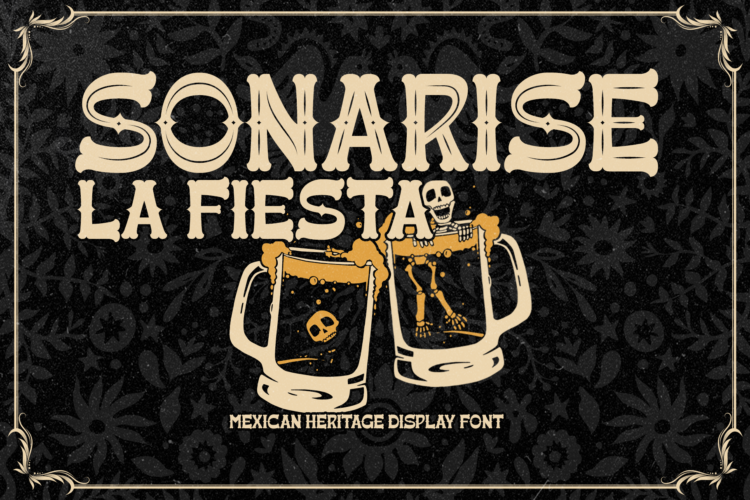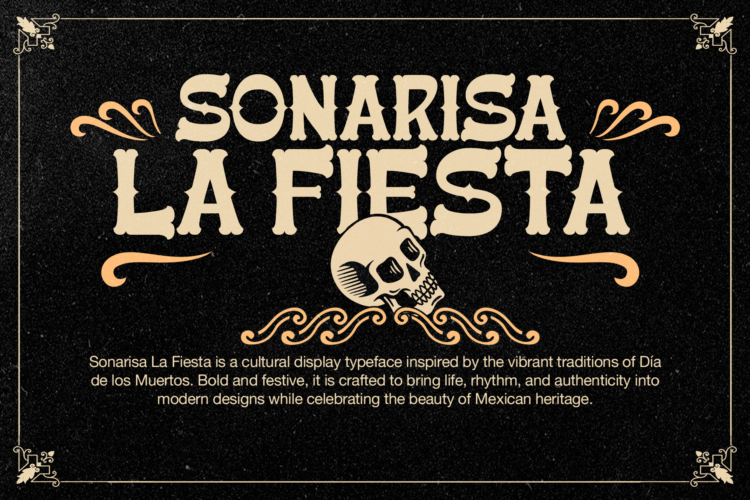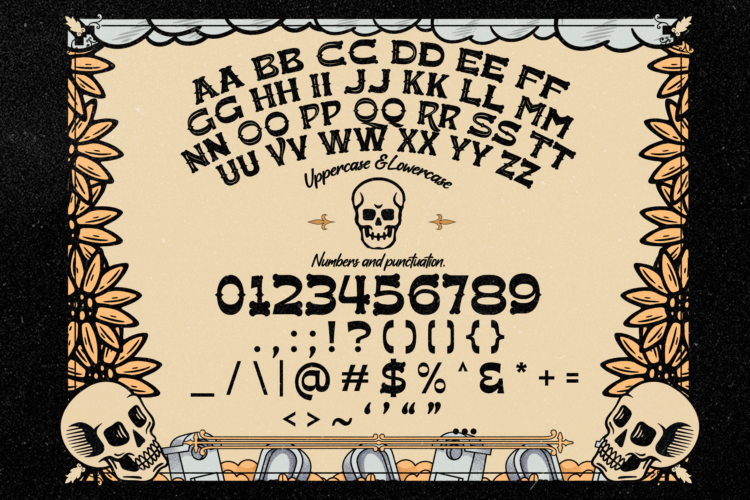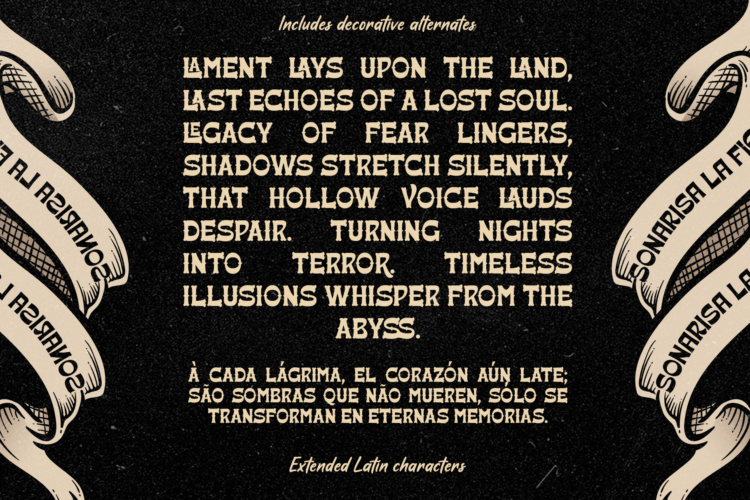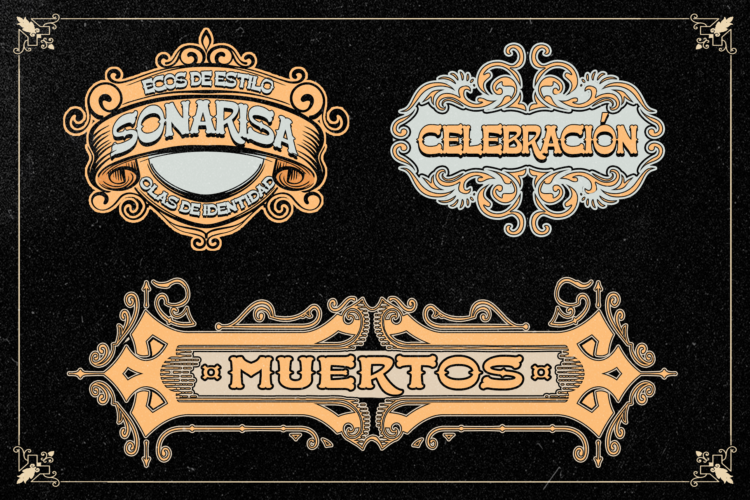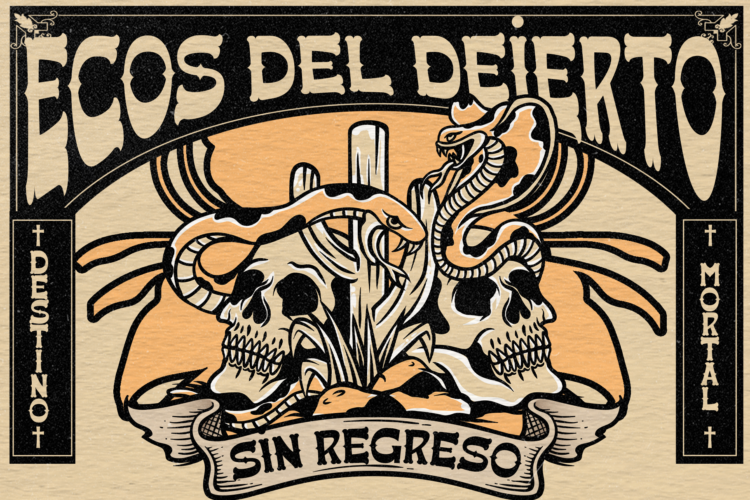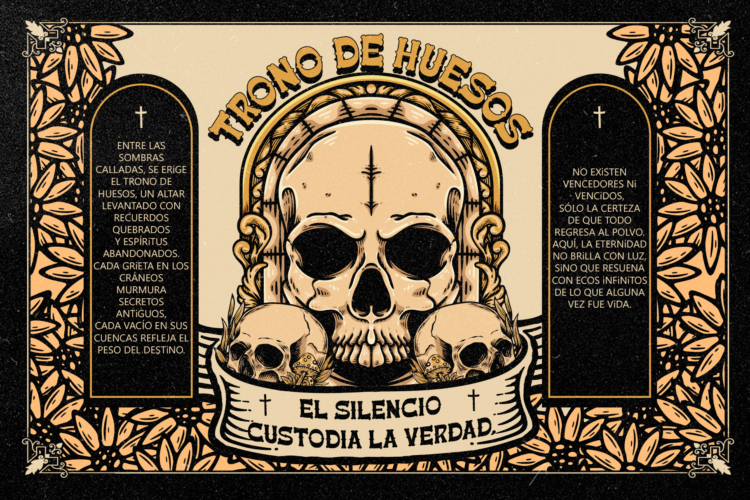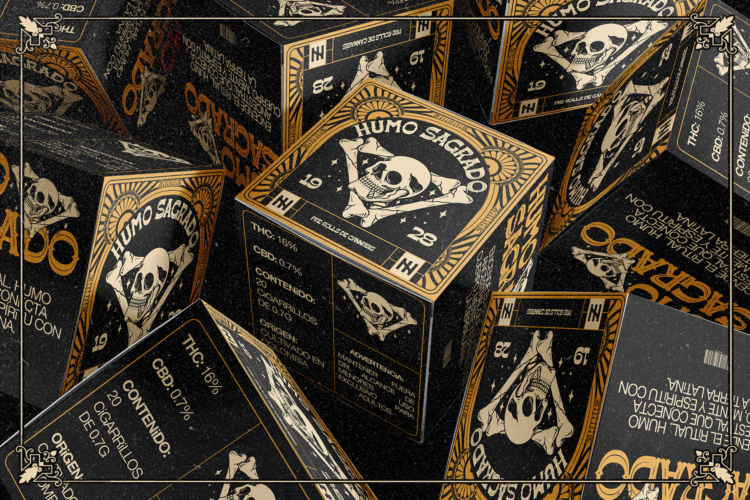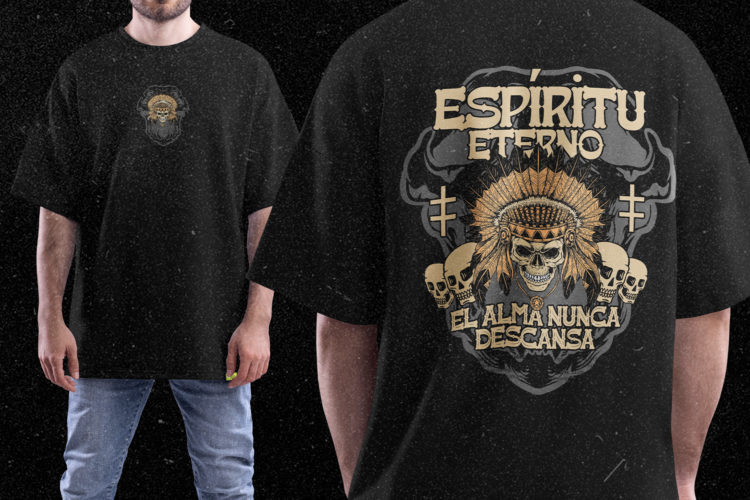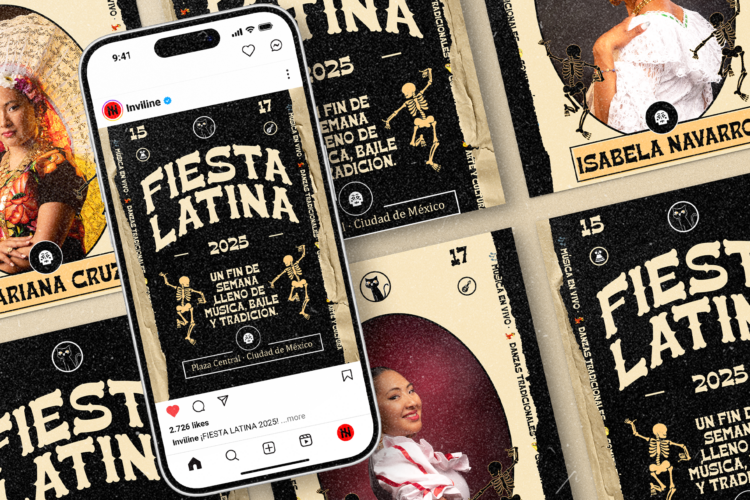
Sonarise La Fiesta – Heritage Font
Sonarise La Fiesta is a cultural display typeface inspired by the vibrant traditions of Día de los Muertos. Crafted with bone-shaped letterforms, bold curves, and festive details, this font dances between life and afterlife, echoing the rhythm of Latin celebration and remembrance.
Each character is infused with energy — from skulls to ornamental strokes — designed to elevate posters, event branding, and packaging with both character and charm. Whether you’re designing for Halloween, a Latin-themed fiesta, or music artwork with soul, Sonarise La Fiesta brings authenticity, rhythm, and legacy to your layout.
- Uppercase & lowercase
- Numbers & punctuations
- Decorative alternates
- Multilingual Latin support
Perfect For :
- Día de los Muertos posters & events
- Halloween packaging & branding
- Latin food & drink labels
- Music festival visuals
- Tattoo-inspired design
- Cultural merch & art